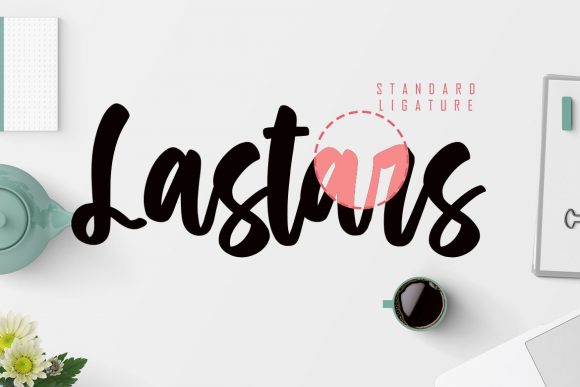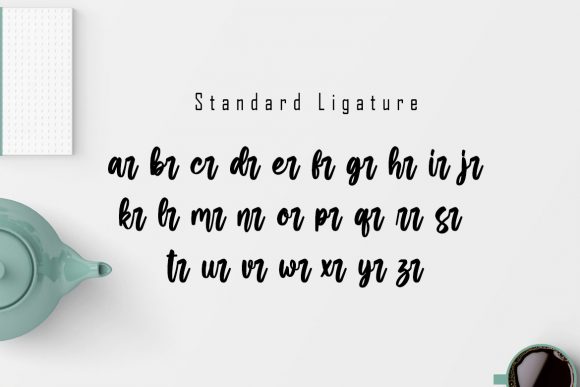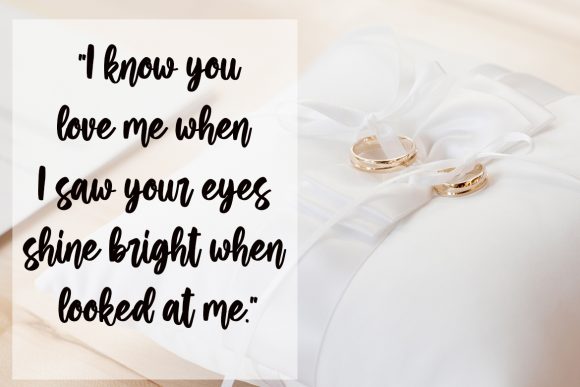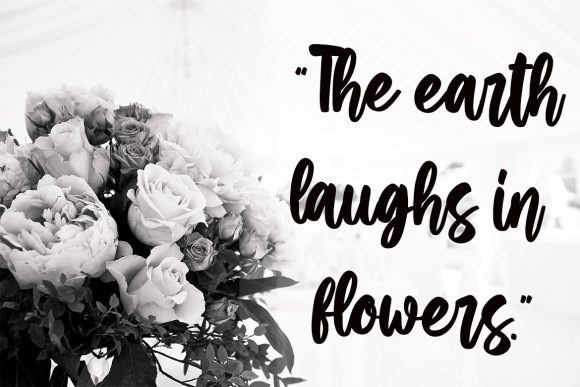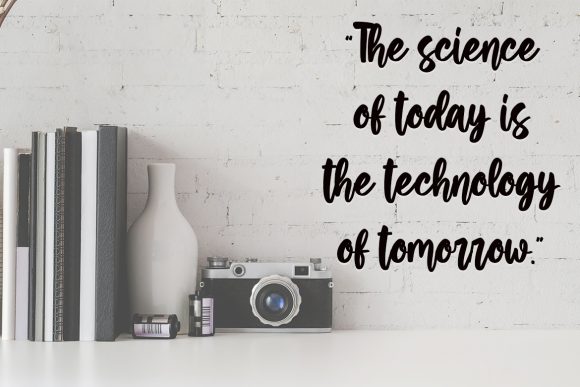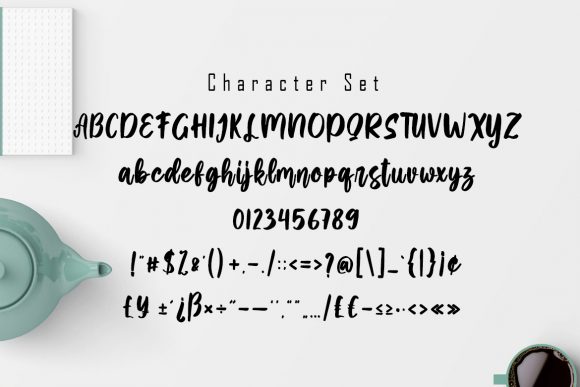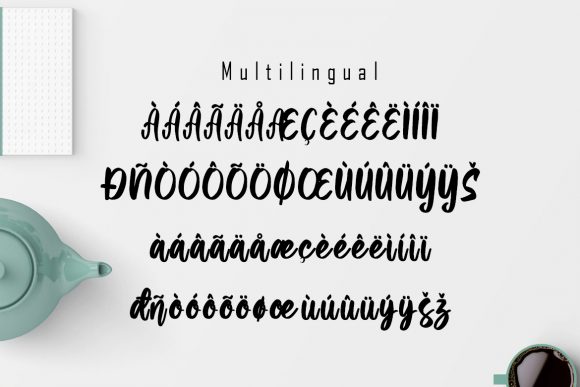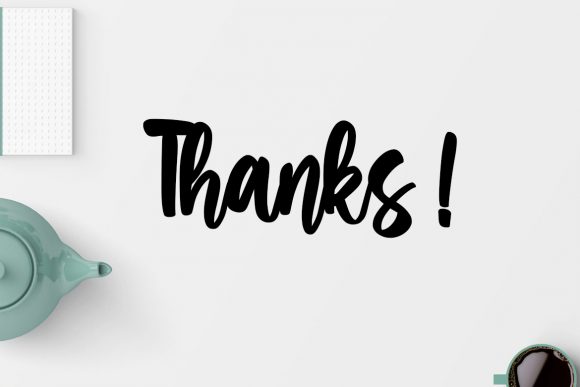
Jartails Font
Jartails is an elegant, flowing and thick lettered handwritten font that features sweet and delicate swashes. This original look will appeal to a wide range of crafty ideas, from letterheads and titles, to stationery.